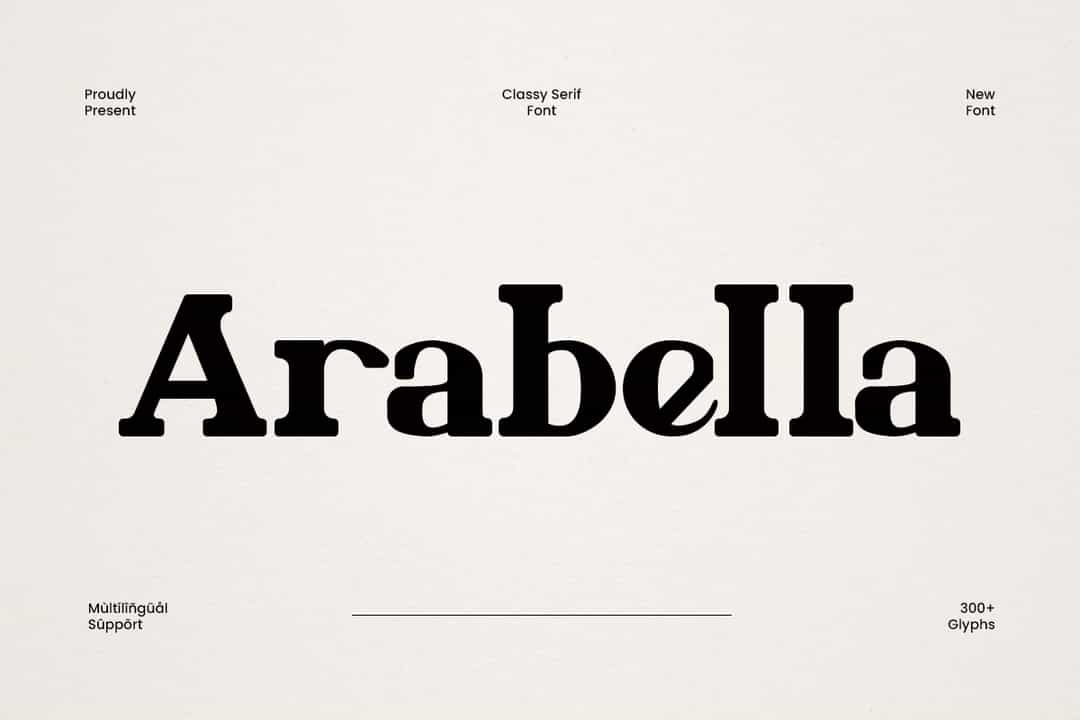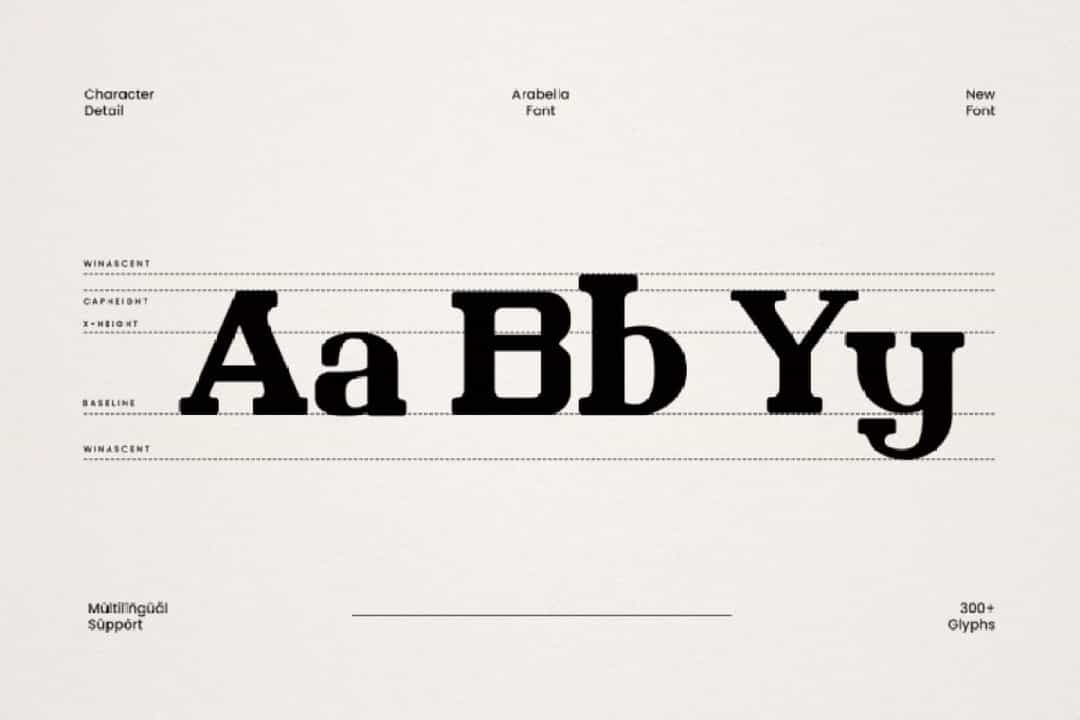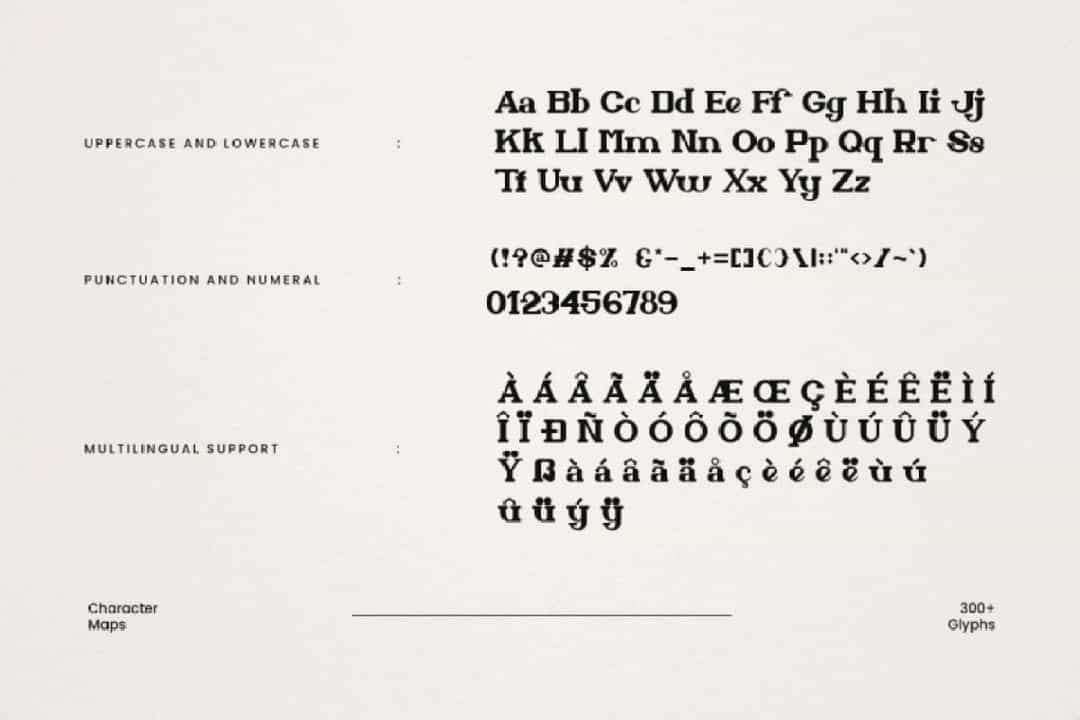
Discover Arabella Serif Font, part of the Serif Slab Serif collection—a versatile and unique font perfect for adding a personal touch to your projects. Download it for free and enjoy crafting designs with style, from invitations to social media posts. This font is available exclusively for personal use, giving you the freedom to create without limits. Unlock your creativity with Arabella Serif Font today!
Arabella is an elegant yet bold serif typeface. Perfect for various design applications such as posters for cover designs and T-shirt adornment, wedding invitations and book covers professional-looking designs; and more, make your designs pop more with Arabella!